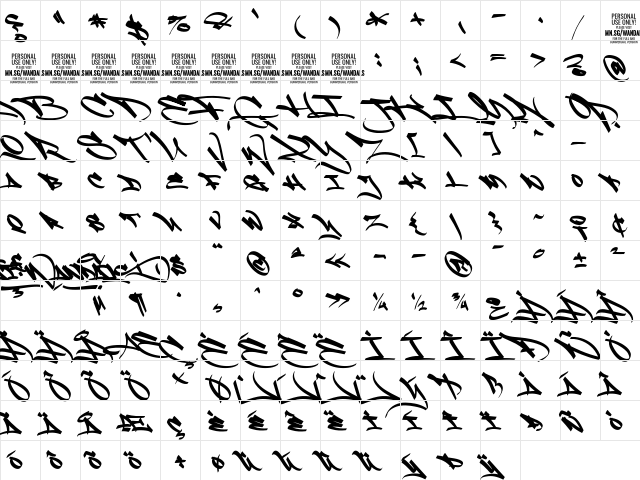
Fat Wandals Alt PERSONAL USE Regular
Design Context for Fat Wandals Alt PERSONAL USE Typeface
Fat Wandals Alt PERSONAL USE is a composed and adaptable typeface that performs quietly and consistently across a wide range of design contexts.